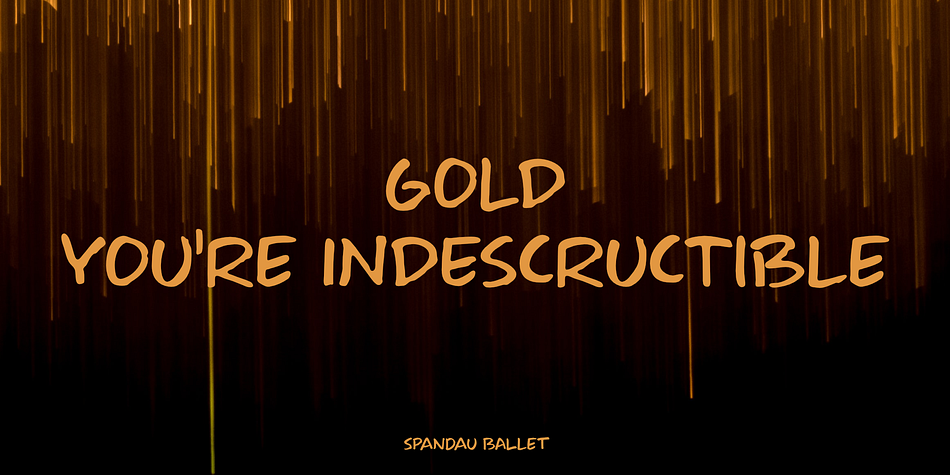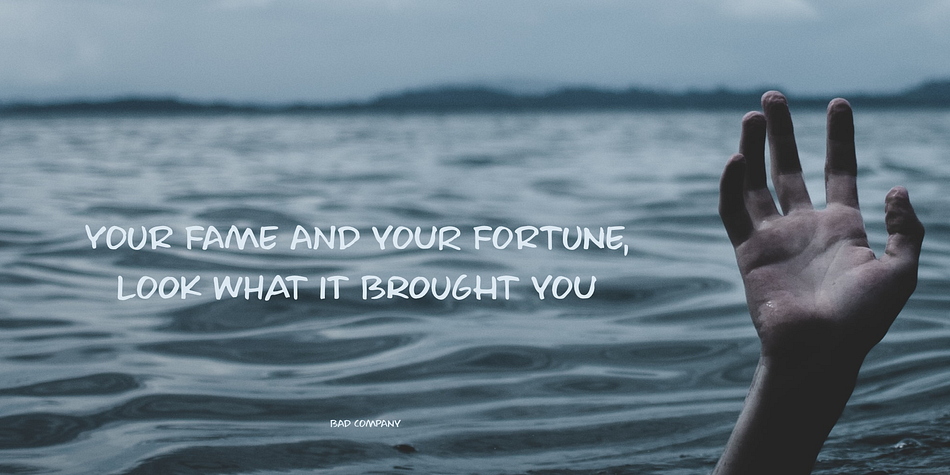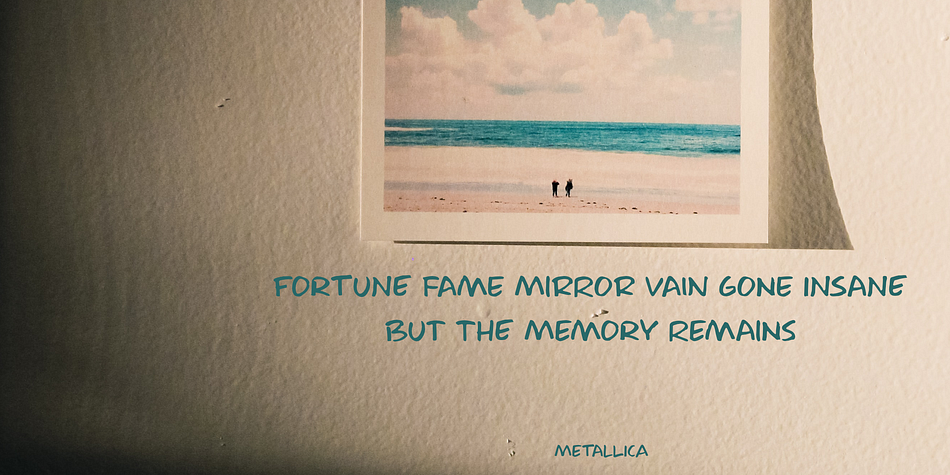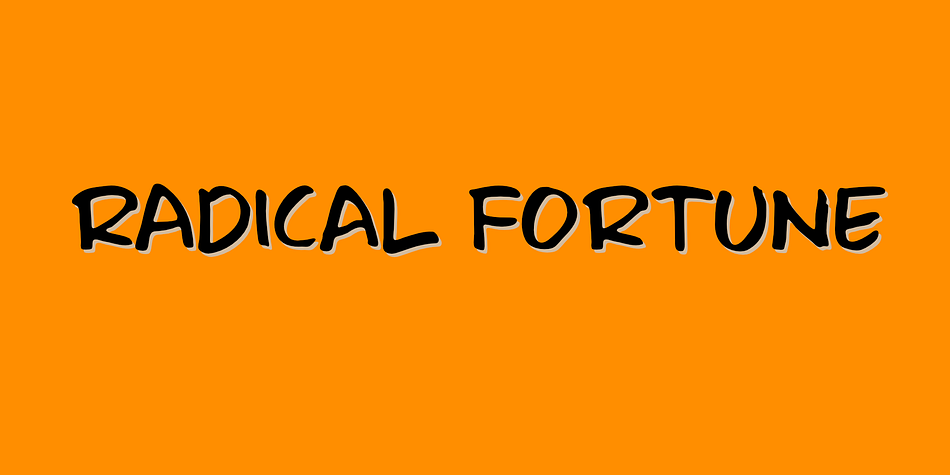
Radical Fortune
Designed by David Kerkhoff, Radical Fortune is a brush display and hand drawn font family. This typeface has two styles and was published by Hanoded.
One day my kids asked me: ‘would you rather be healthy and poor or super rich and sick?’ Without a doubt I answered: ‘healthy and poor’. Having money is nice, but it is not what life is about. At least, that is what I believe.
Radical Fortune is a font I made after a period in my life that could have ended with a really nice sum of money in my hands - but which I didn’t take. I had to give up too much of myself and that just didn’t feel right. I made Radical Fortune to keep me from thinking too much - and, symbolically, I used a really old and cheap marker pen to draw out the glyphs!